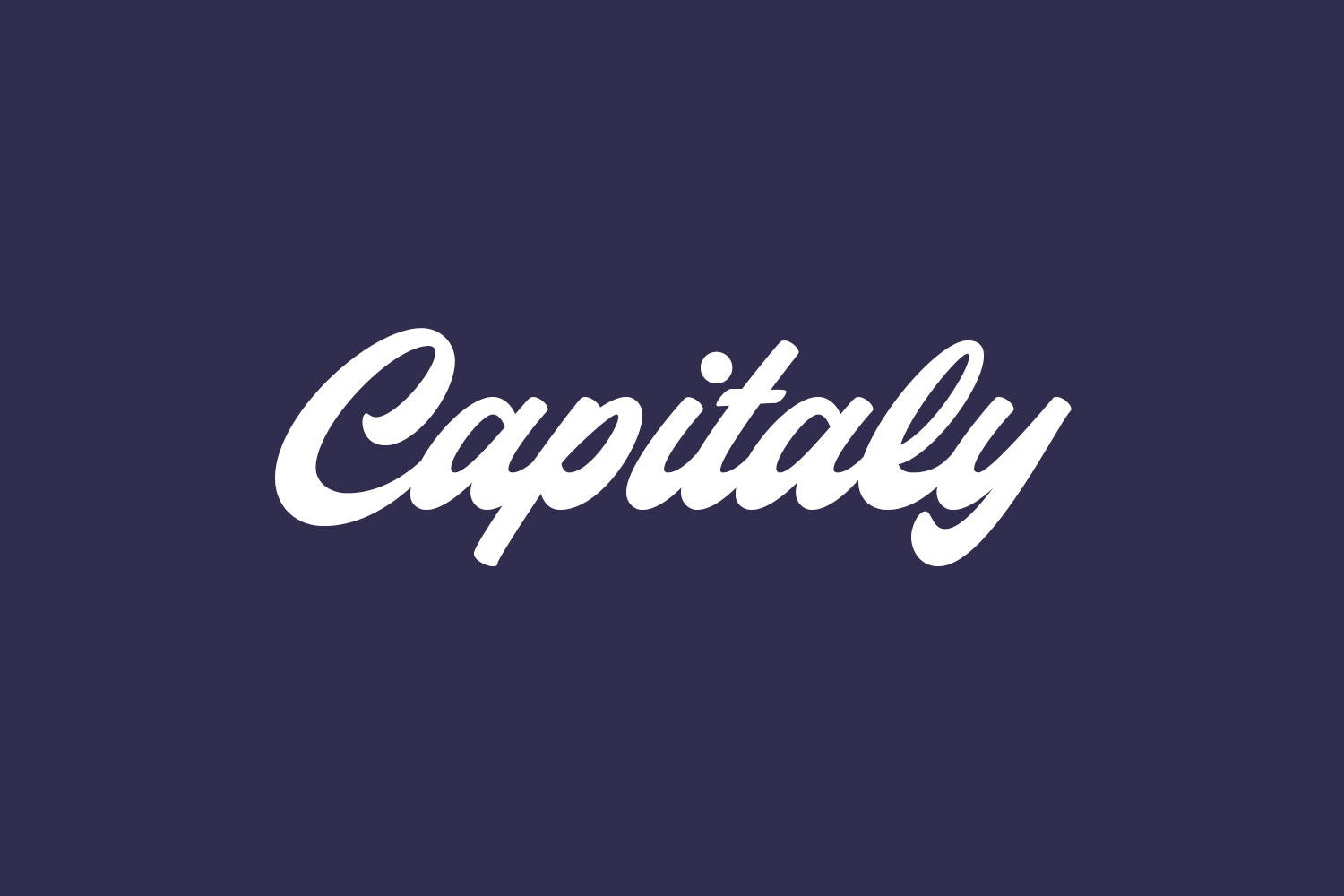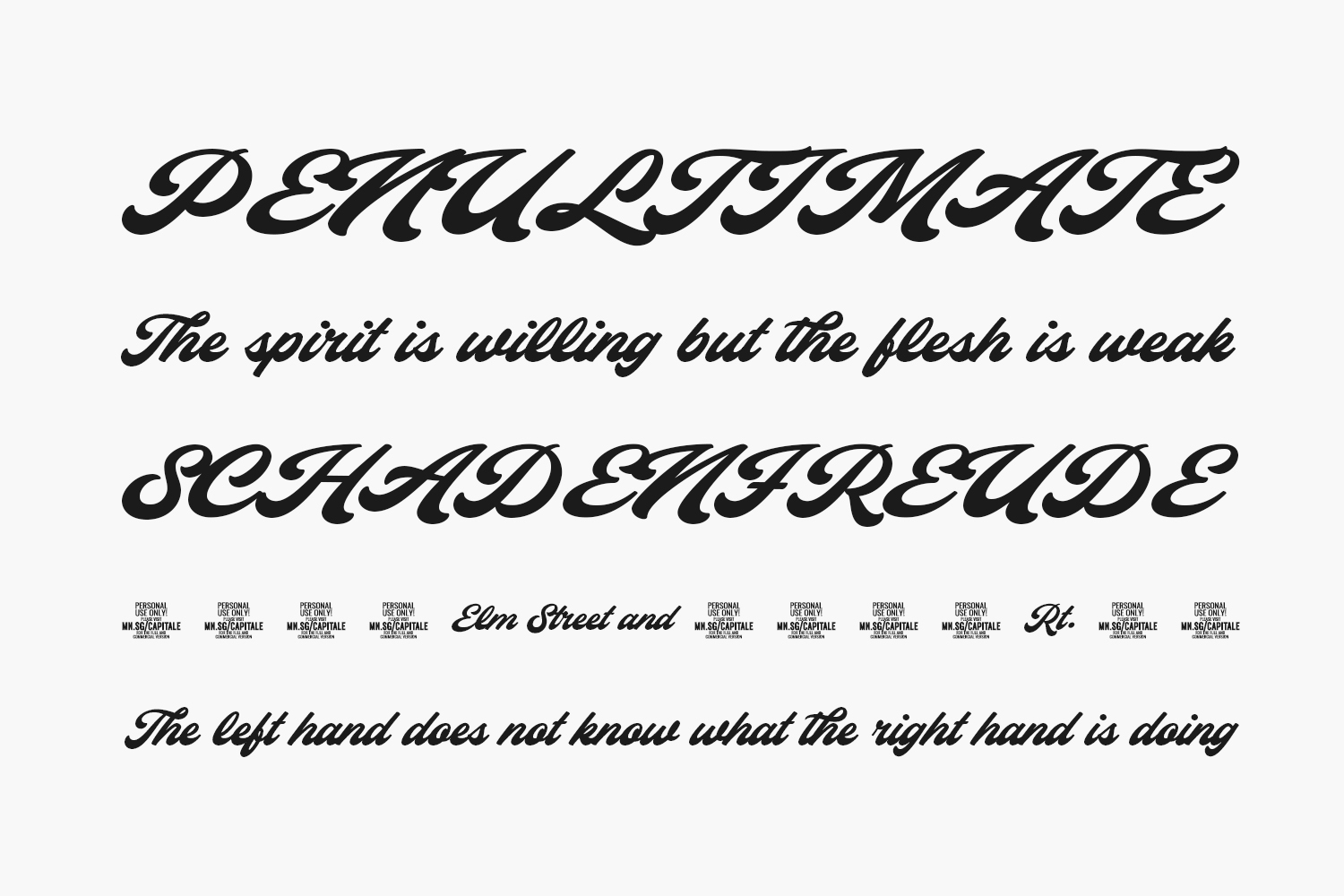
Capitaly Free Font is an old-school script font that brings a touch of nostalgia to any project. With its vintage-inspired style, it’s perfect for creating vintage-themed designs, posters, and other retro elements. The font features a classic script style with a mix of cursive and serif elements that gives it a timeless feel. It’s perfect for creating designs that evoke a sense of history and tradition, like vintage posters, advertisements, labels, and packaging. Whether you’re looking to add a touch of nostalgia to your next project or simply want to evoke a sense of classic elegance, Capitaly is a perfect choice.